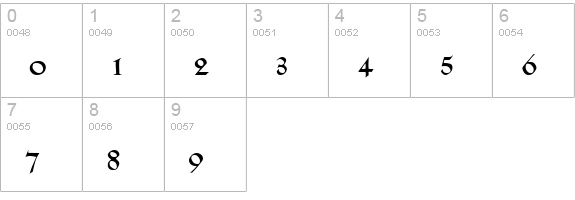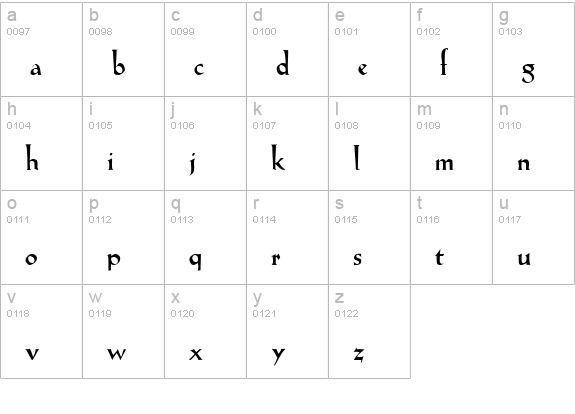
LilHvy Regular Font Details
LilHvy Regular is the standard, neutral variant in the LilHvy typeface family \xE2\x80\x94 well suited to general body text, paragraphs, and standard typographic work.
LilHvy Regular font is a sleek and modern typeface that exudes both elegance and sophistication. Its clean lines and well-balanced proportions make it a versatile choice for a wide range of design projects, from branding to editorial content. The sharp edges and bold strokes of this font give it a strong presence on the page, ensuring that your message is conveyed with clarity and impact. What sets LilHvy Regular font apart is not only its aesthetic appeal but also its accessibility - it is available for free download at FontsMarket.com. This means that you can easily incorporate this stylish font into your designs without breaking the bank. So whether you're working on a personal project or a professional assignment, LilHvy Regular font is a fantastic choice that won't cost you a penny. Download it today and elevate your design game with this stunning typeface.